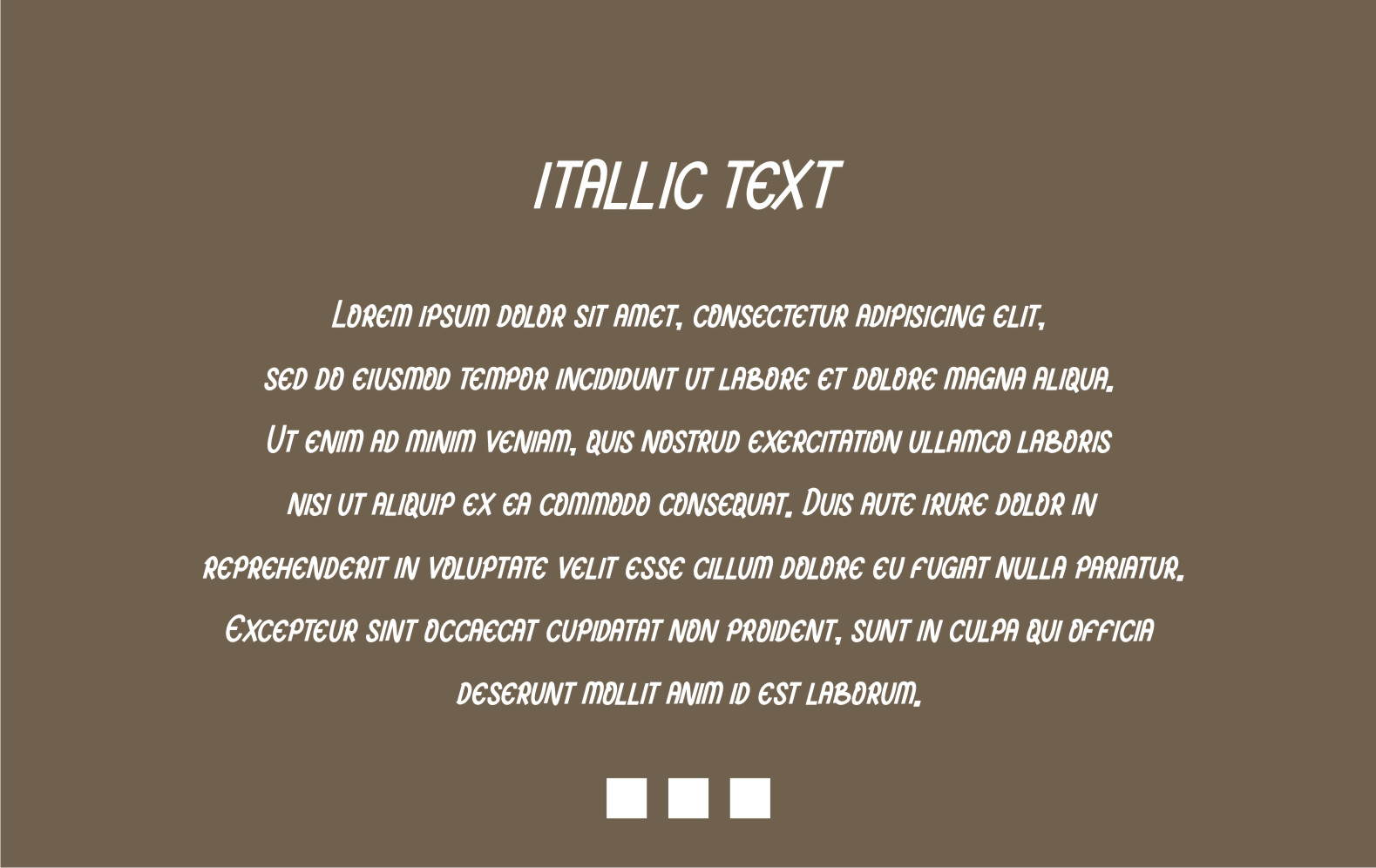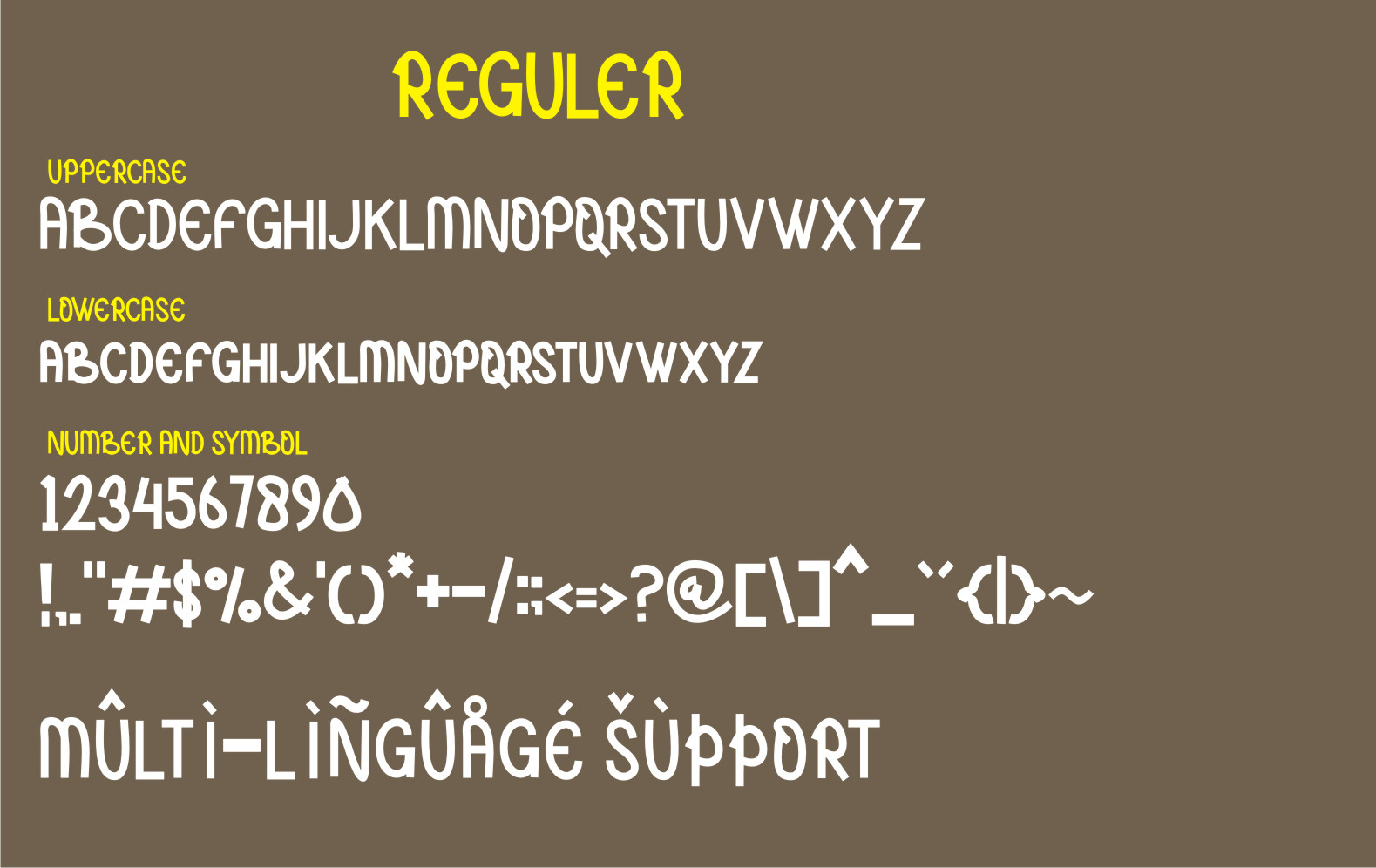
Mantrapa Font
Mantrapa Display Font
This is a cool, neat and simple lettered display font. It looks friendly and modern, and it will fit perfectly with each of your lovely creations that need a friendly, informal touch.